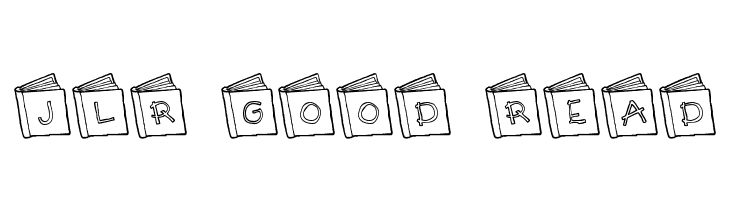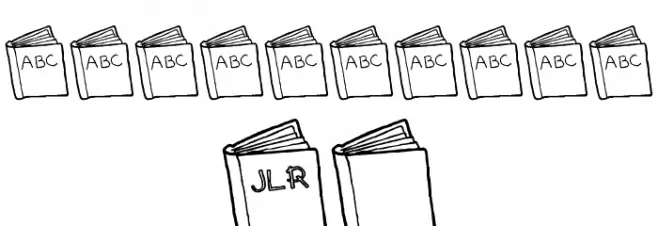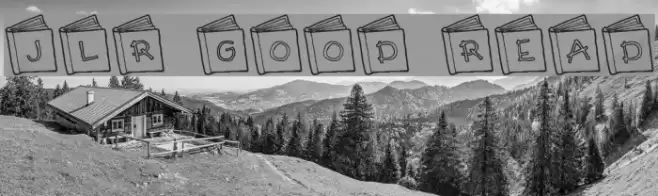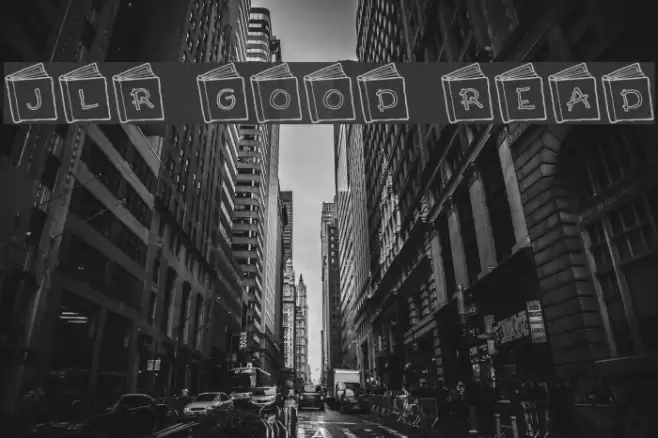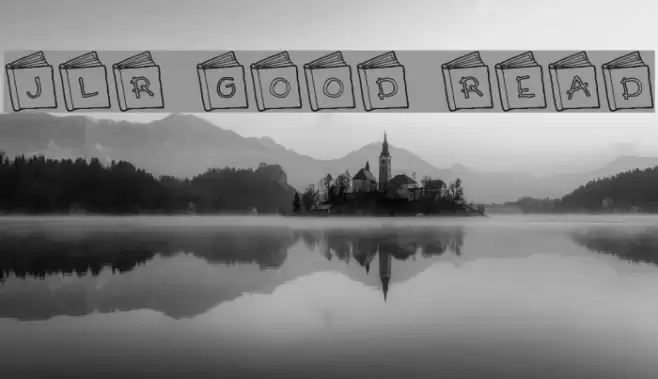
JLR Good Read Font
| Estilo geral | Playful, Creative, Whimsical |
| Caso de uso | Headlines, Logos, Creative projects |
| Projetos propostos | Ideal for children's books, educational materials, book-themed events, or playful branding. |